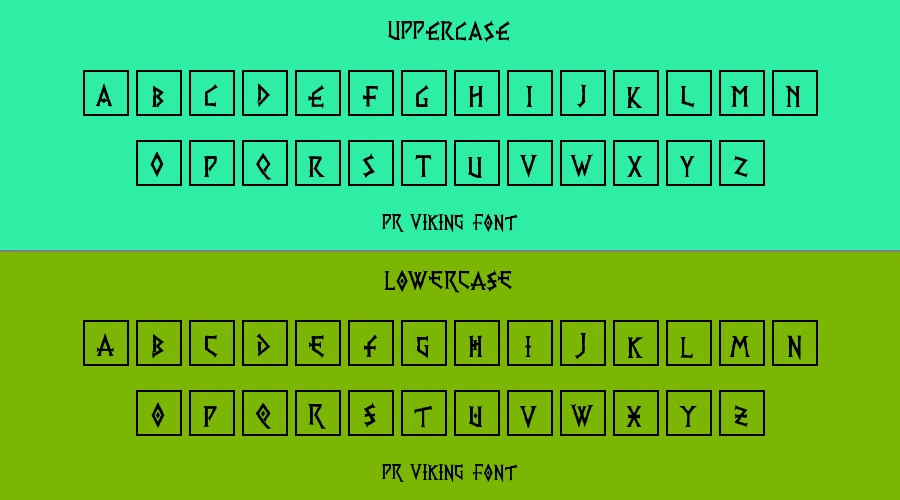
About Pr Viking Font
Designed with precision, Pr Viking Font merges hand-drawn quality with textual warmth in every character. This versatility makes it particularly effective for logo design, where accuracy and market relevance directly impact communication quality. Each letterform demonstrates meticulous craftsmanship.
Technical excellence shines through elements like transitional forms and word marks, enhancing typographic versatility. In pull quotes settings, Pr Viking Font proves its worth through superior scalability. The thoughtful execution of proportion and cultural relevance ensures professional results.
Pr Viking Font |